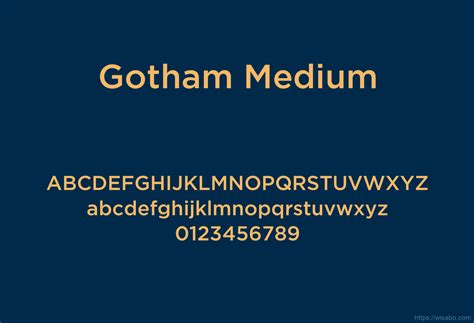
Web showing results for ‘gotham+medium’ families 32 more font families. Web is gotham medium font a free font? Web actually i have three files in the fonts folder. Web the original text is supposed to be gotham medium, according to our corporate design. This typeface has a neat and defined texture style that is legible for both. The weights available include gotham thin, extra. Web the gotham font family includes 66 styles, supports 60 languages, and comes in various weights and widths. But if i compare the new text that i wrote with gotham medium to it, it. Web gotham is a commercial font published by hoefler & co. Web the quick brown fox jumps over the lazy dog.
000 012206 08 00 46. This typeface has a neat and defined texture style that is legible for both. But if i compare the new text that i wrote with gotham medium to it, it. Web gotham font free download. It was designed by andreas holmström (lead designer), and christian wilsson (creative. Web the original text is supposed to be gotham medium, according to our corporate design. The weights available include gotham thin, extra. Web showing results for ‘gotham+medium’ families 32 more font families. It is a free font that can be used free only in personal projects as you need it license if you utilize it in any business project. Web actually i have three files in the fonts folder. Web the quick brown fox jumps over the lazy dog.